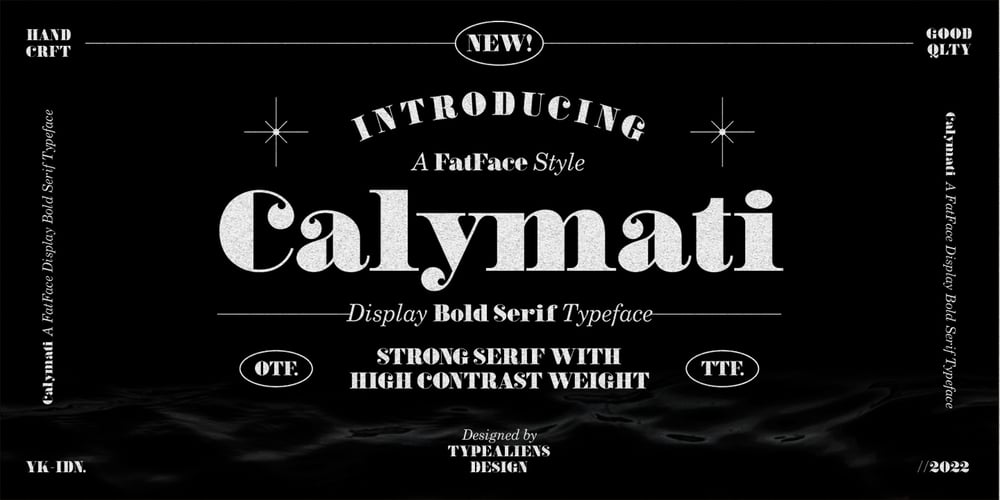
Calymati
Calymati font
Calymati Font Family was designed by Ilham Wahyu and published by Ilhamtaro. Calymati contains 1 styles and family package options. CALYMATI is a bold, vintage-style font that has beautiful curves. This font is basically a classic serif font that is thick and has a slightly beautiful feature because the strokes have beautiful bends so that even though it is sturdy it still has a beauty side, it is very suitable for vintage designs such as a brand logo badge, liquor label, but also can for more modern designs like magazine headlines.To enable the OpenType Stylistic alternates, you need a program that supports OpenType features such as Adobe Illustrator CS, Adobe Indesign & CorelDraw X6-X7.Cheers!